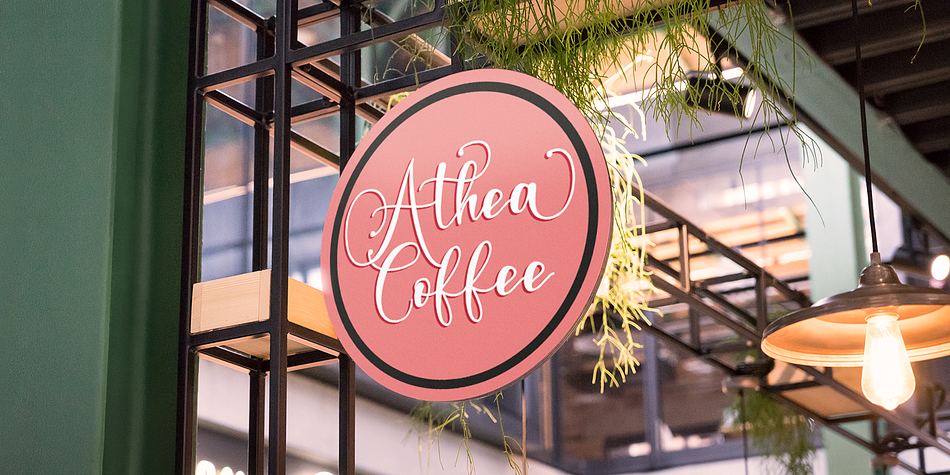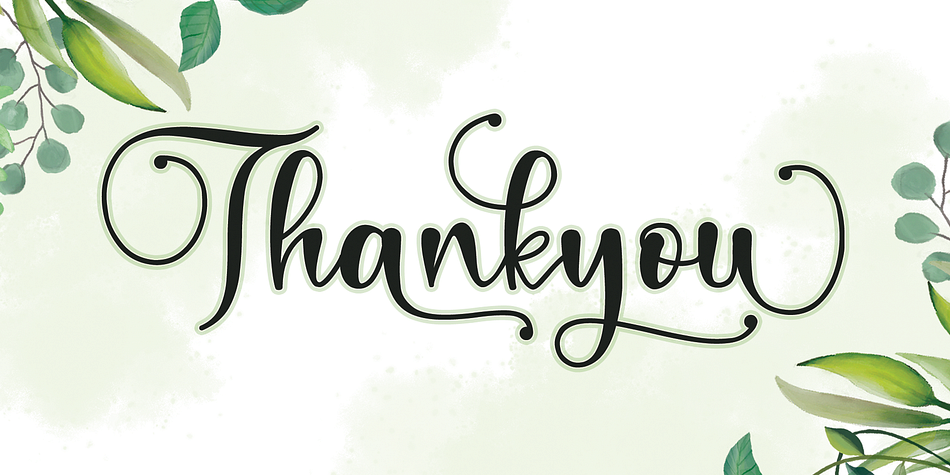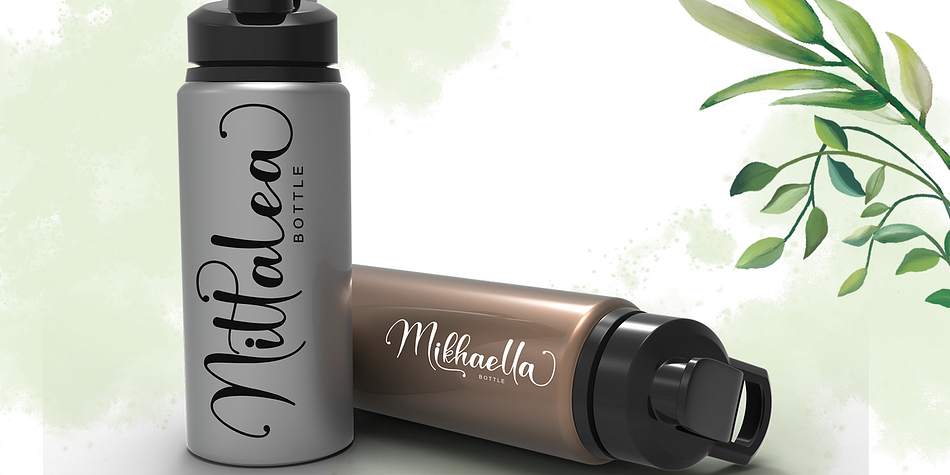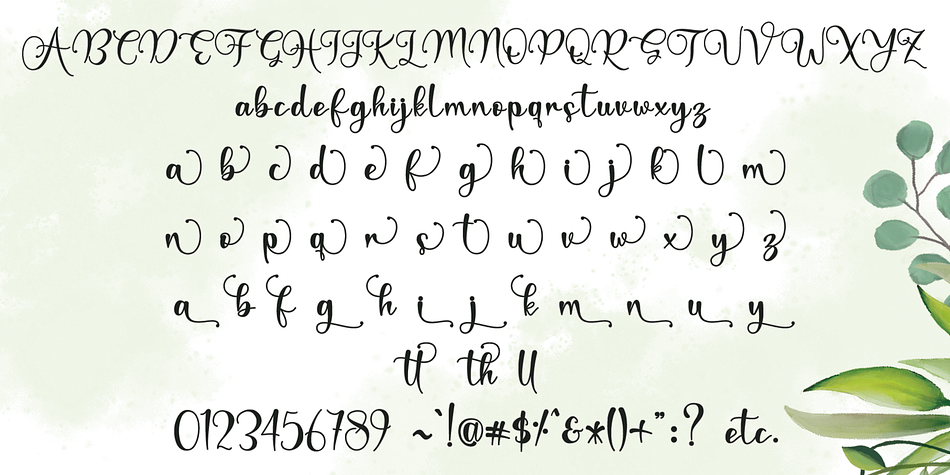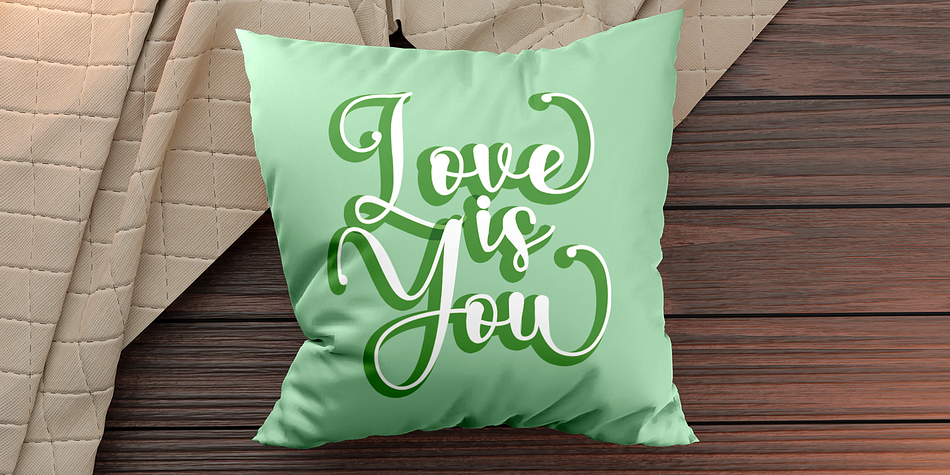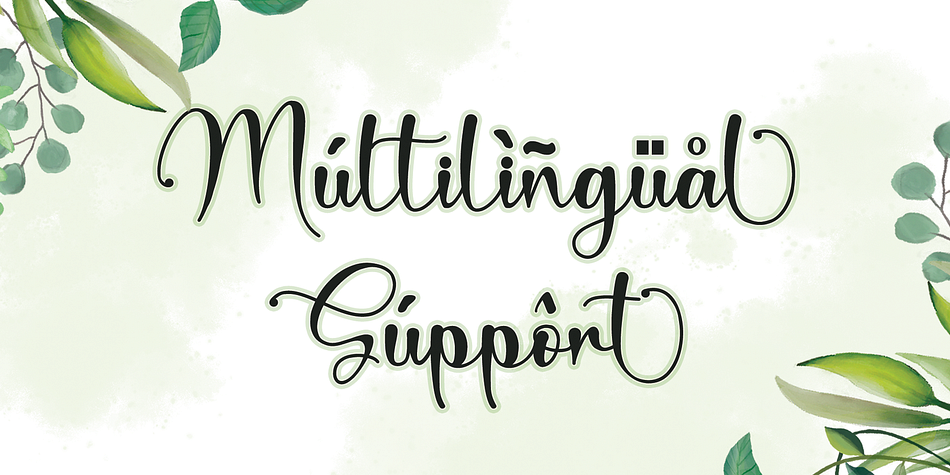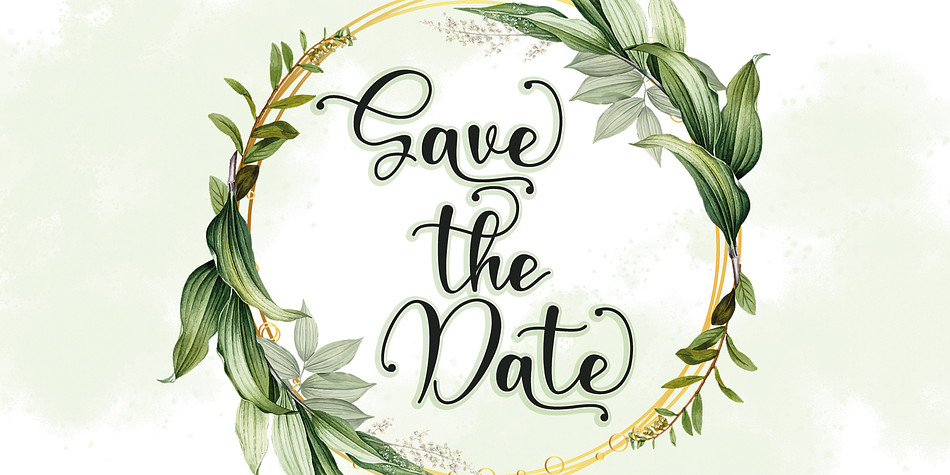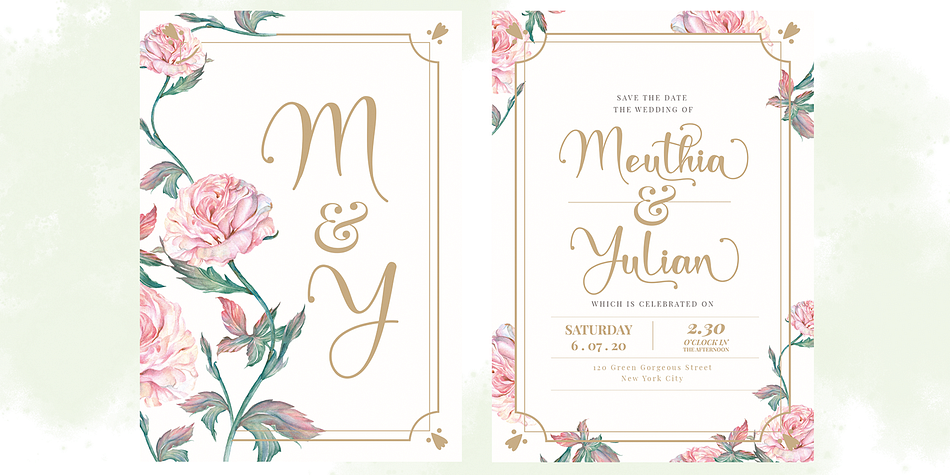
Mathella
Designed by Ahmad Afandi, Mathella is a brush script font family. This typeface has two styles and was published by Letterafa Studio.
Mathella is a dazzling script font. This font is neatly crafted and highly detailed. It is also PUA encoded which means you can access all glyphs and swashes with ease!
Foundry Letterafa Studio
Designer Ahmad Afandi